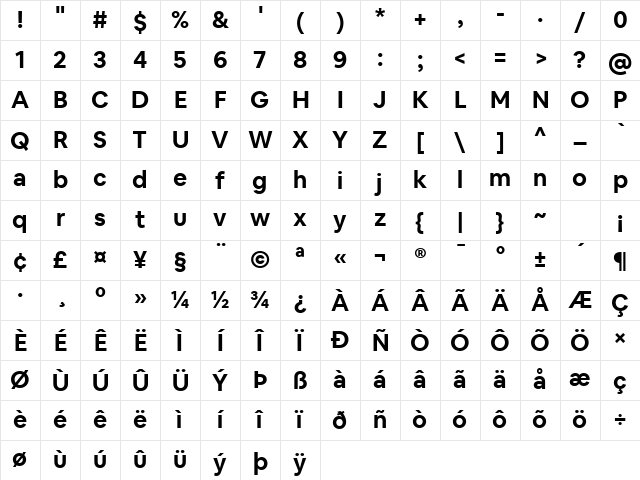
Airbnb Cereal App Bold Free Font
Airbnb Cereal App Bold
Foundry: Dalton Maag Ltd
Designer: Dalton Maag Ltd
Design Context for Airbnb Cereal App
Airbnb Cereal App is a composed and adaptable typeface that performs quietly and consistently across a wide range of design contexts. Its bold stroke weight gives it real presence on the page.